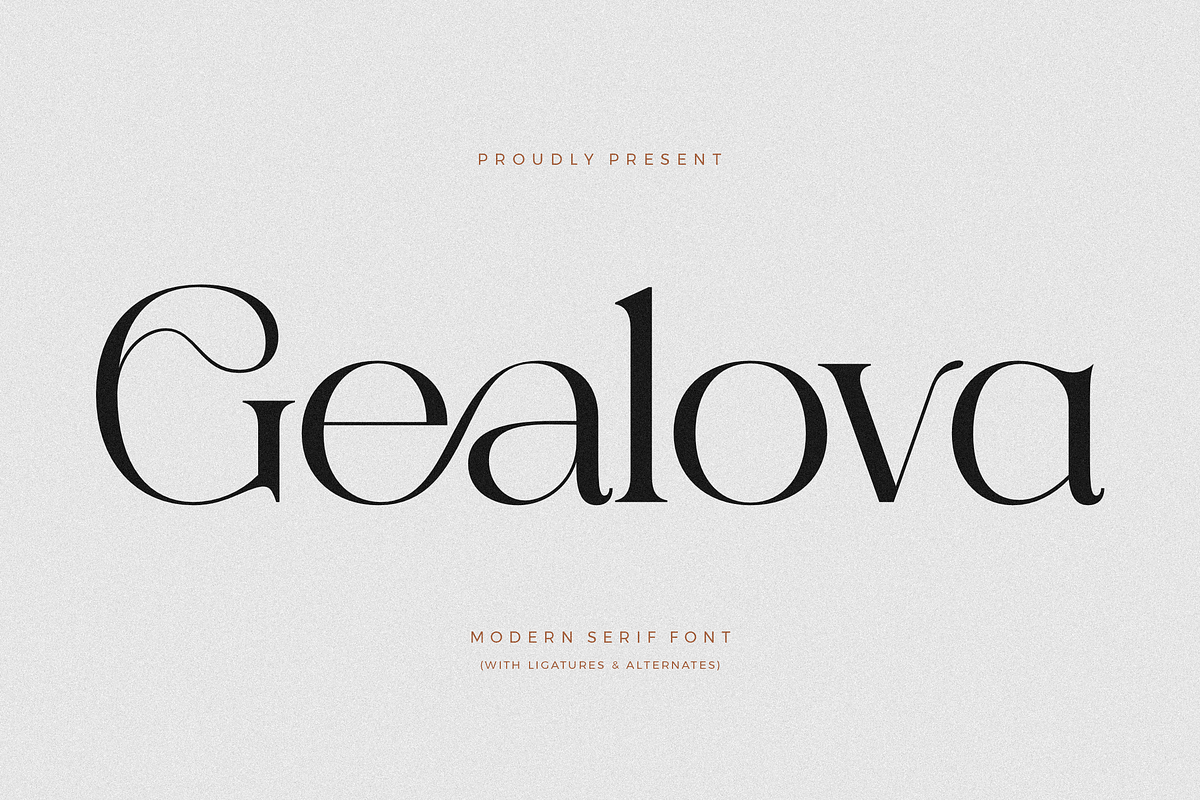
Gealova Modern Serif Font Free Download is a sophisticated and contemporary typeface designed to add elegance and clarity to your designs. Featuring sharp serifs and clean lines, this font combines timeless elegance with modern style, making it perfect for logos, branding, editorial layouts, and websites. Its refined appearance ensures readability while giving a professional and stylish vibe to any project. Whether you're working on high-end branding, a creative campaign, or a luxury product, Gealova Modern Serif Font Free Download lets you explore its beauty in personal projects before purchasing a commercial license. Add a touch of modern sophistication to your designs with this beautifully crafted serif font.